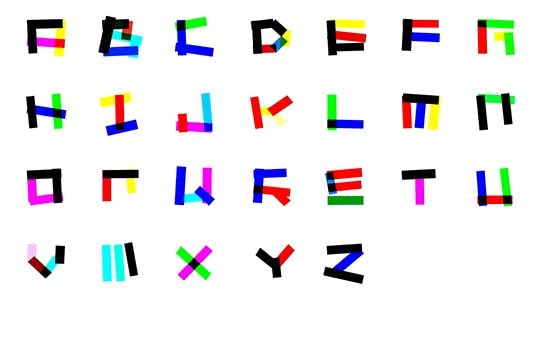
A New York-based graphic designer Zipeng Zhu has created an electronic font that emulates the electronic music scene. The letters are digitalized to move about the screen in a rave-like fashion; the letters jive back and forth to flashing, brightly colored lights.
Each letter of the alphabet is intensified with a combination of blinding neon hues. The typeface is block-shaped and and the corners appear hinged to one another to emphasize their movements.
Zipeng Zhu created a short video to give the full visual effect each letter has and what they look like when typed into a full sentence. The letters' movements coincide with the electronic music that is aptly used in the video. This typography would be perfect for electronic artists to use on their screen backdrops at a music festival.
Rave-Inspired Typography
Zipeng Zhu Created a High-Energy, Electric Font Called 'Electrica'